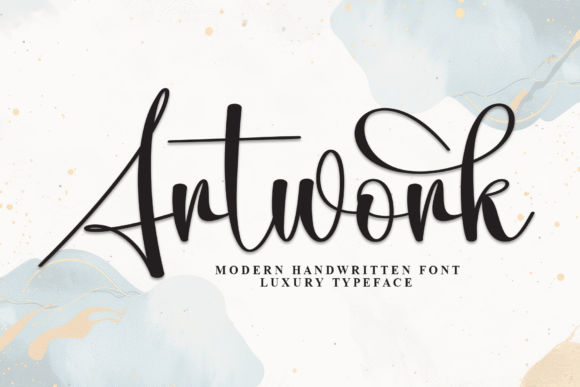
The Art of Elegance: Discovering the Artwork Font
I’ll never forget the time I was working on a wedding invitation project, and my client asked for a font that would make the invitation look “elegant and personal.” I scoured the internet, tried out dozens of fonts, but nothing seemed quite right. That was until I stumbled upon the Artwork font. It was like a breath of fresh air – a handwritten font that looked like it was written with love and care. In this article, I’ll share my experience with the Artwork font, its features, and how to make the most of it in your design projects.
- ✨ The Artwork font has a unique, personal touch that makes it perfect for creative projects.
- ✅ It’s incredibly versatile and can be used for a wide range of designs, from wedding invitations to branding materials.
- 💫 The font has a beautiful, flowing script that adds a touch of elegance to any design.
- 🎨 It’s perfect for designers, crafters, and creative hobbyists who want to add a personal touch to their projects.
While the Artwork font is amazing, there are a few things to keep in mind:
- 🤔 The font can be a bit tricky to read at small sizes, so it’s best to use it for headlines or titles.
- ⚠️ Some of the glyphs and special characters can be a bit finicky, but with a little practice, you’ll get the hang of it.
A Practical Guide: Using Artwork Font in Your Designs
- Experiment with the font’s OpenType features, such as glyphs and stylistic alternates, to add some personality to your design.
The Designer Inspiration Behind Artwork Font
The Artwork font was designed with the intention of creating a beautiful, elegant script that would add a personal touch to any design. The designer wanted to create a font that would look like it was written with love and care, rather than a generic, computer-generated font. The result is a font that’s perfect for designers, crafters, and creative hobbyists who want to add a touch of elegance and sophistication to their projects.
| Font Name | Artwork Font |
| What is the Artwork font? | The Artwork font is a handwritten font that looks like personal, elegant handwriting. |
| Is the Artwork font easy to read? | The Artwork font is generally easy to read, but it can be a bit tricky at small sizes. |